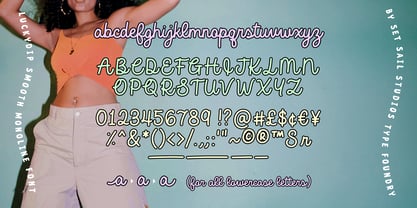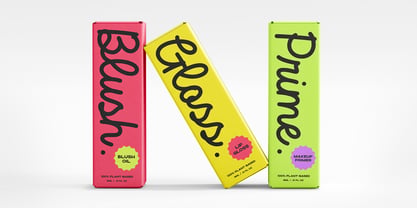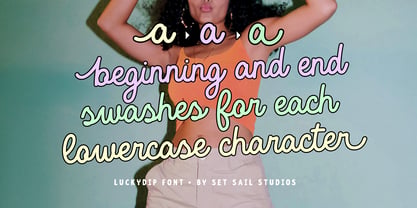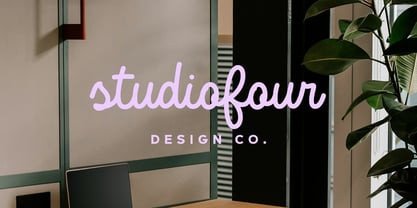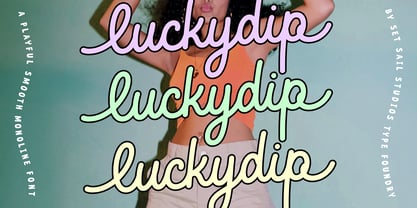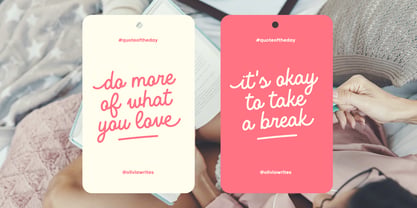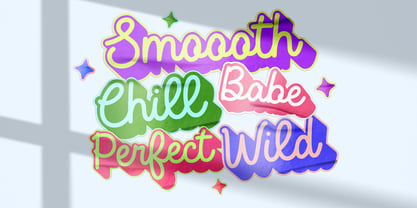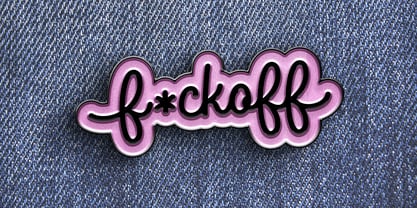
Luckydip
by Set Sail Studios
The Luckydip Font Family was designed by Sam Parrett and published by Set Sail Studios. Luckydip contains 1 styles. More about this family
Introducing the Luckydip Script Font! A smooth, playful and connected monoline font, designed for fresh on-trend brands and creators.